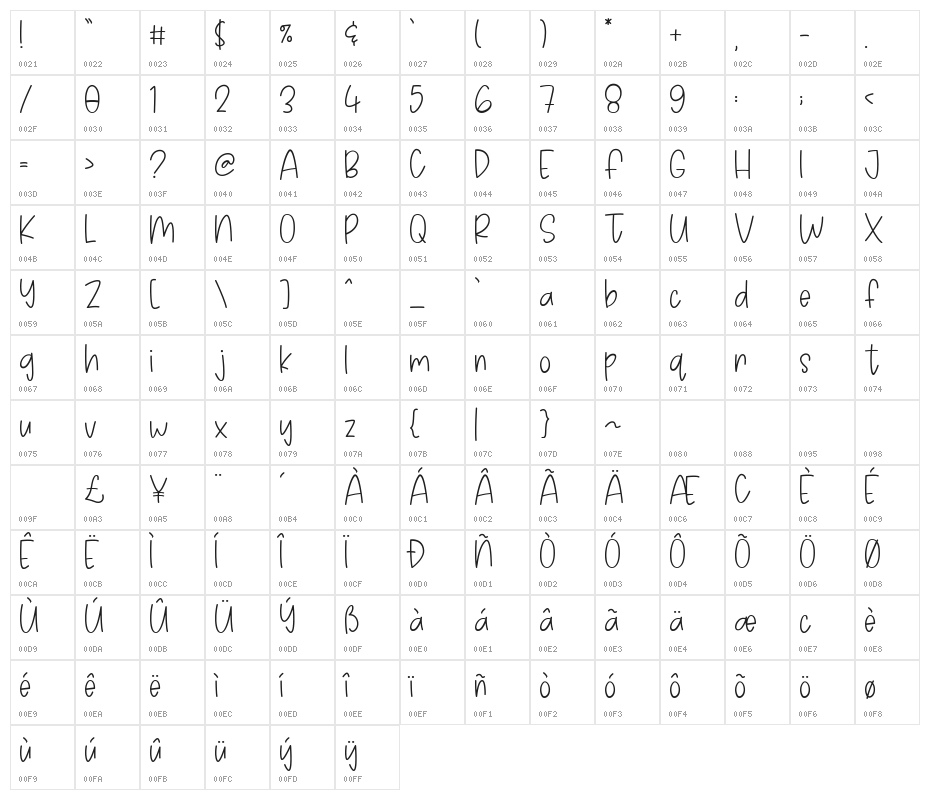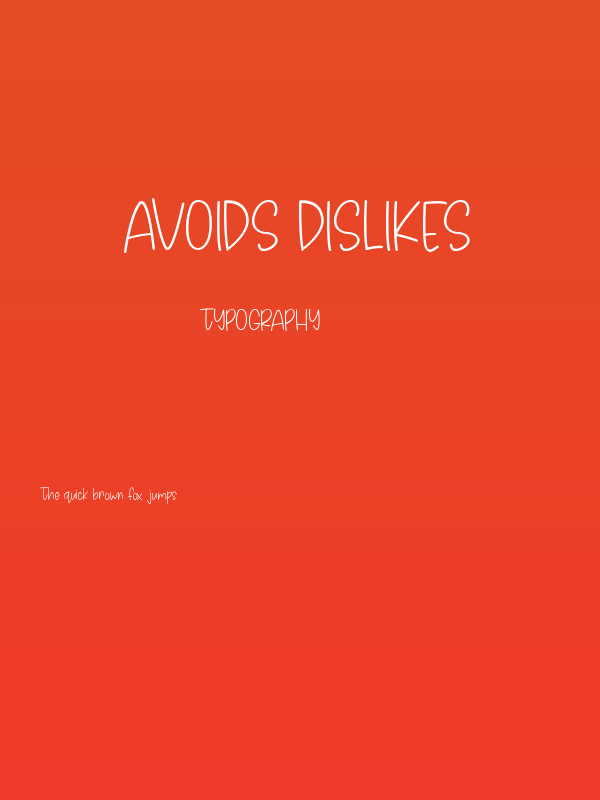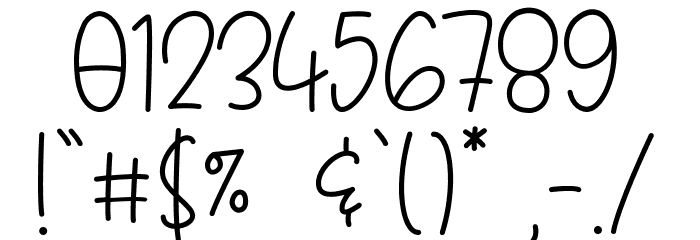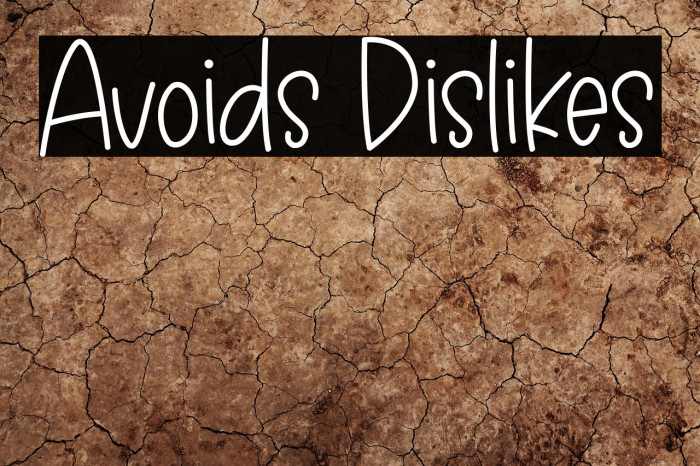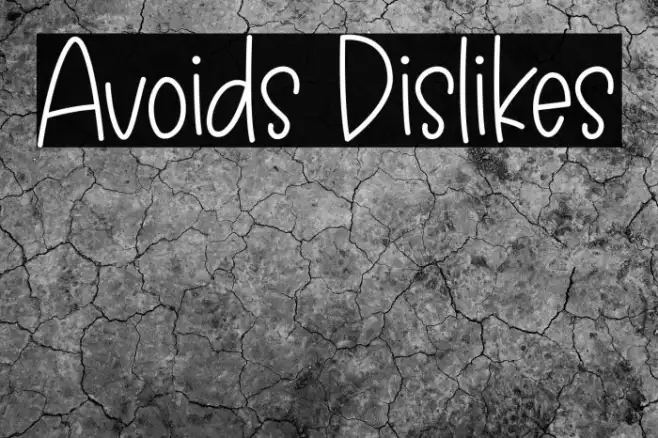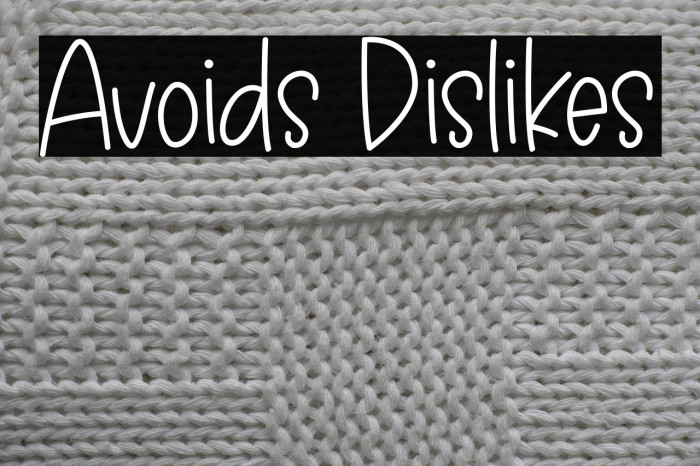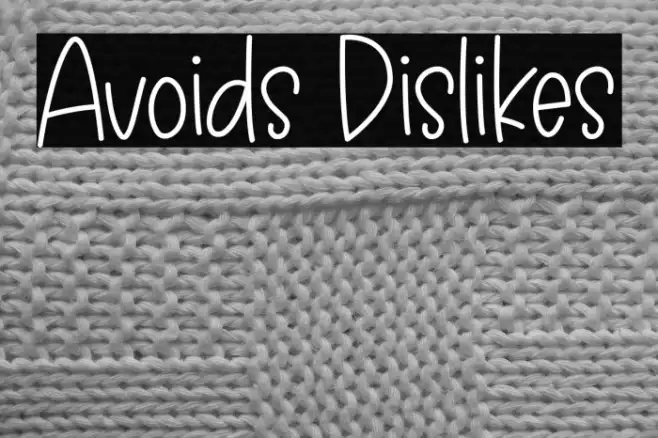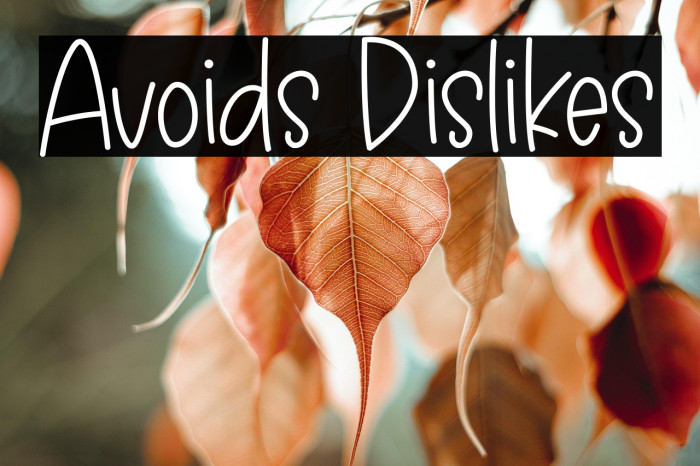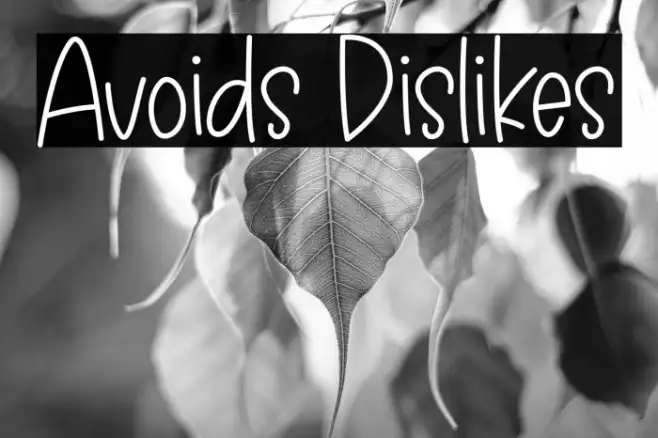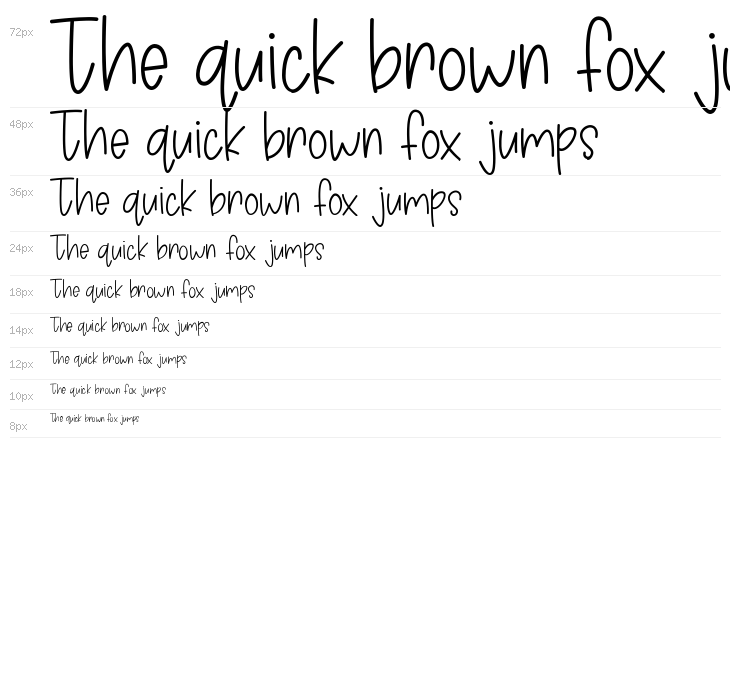
Avoids Dislikes Font
Avoids Dislikes Description
This font features a playful, handwritten style with a casual and friendly appearance. The characters are slightly irregular, adding a personal touch that mimics natural handwriting. The strokes are consistent in width, giving it a uniform look, while the rounded edges soften the overall aesthetic. The uppercase and lowercase letters are well-proportioned, maintaining readability. Numbers and special characters are designed to match the whimsical style, making the font versatile for creative projects.
| Proposed Projects | Ideal for greeting cards, children's books, personal blogs, and informal branding. |